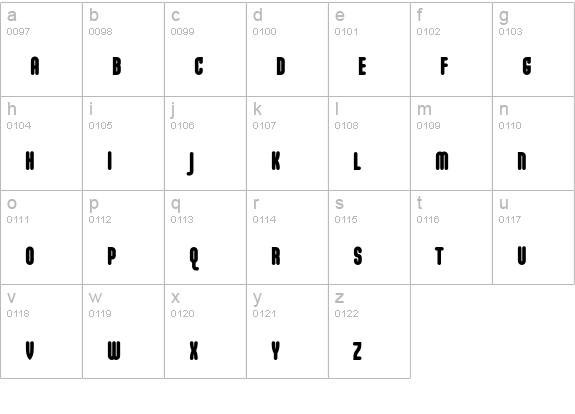
ModulaRoundBlackSmallCaps Font Details
ModulaRoundBlackSmallCaps is a sleek and modern typeface that exudes sophistication and elegance. With its rounded edges and bold design, this font is perfect for creating eye-catching headers, titles, and logos. The small caps style adds a touch of uniqueness and flair to any design project. Best of all, ModulaRoundBlackSmallCaps is available for free download at FontsMarket.com. Whether you're a professional designer looking to enhance your projects or a hobbyist seeking high-quality fonts, this typeface is a must-have addition to your collection. Download ModulaRoundBlackSmallCaps today and elevate your designs with its timeless appeal and versatility.